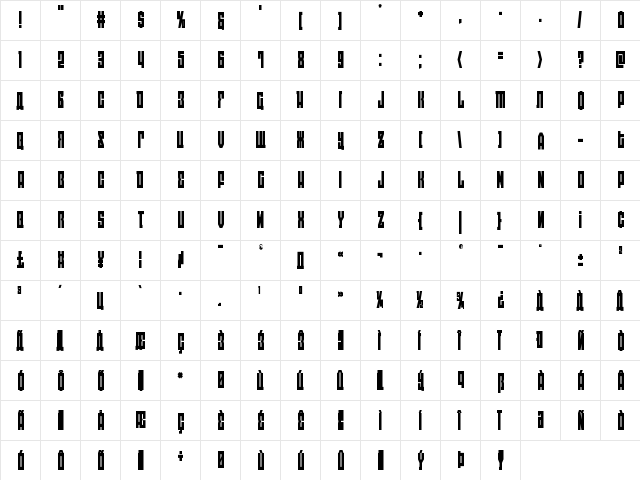
EAST-west Condensed Condensed
Design Context for EAST-west Condensed Typeface
EAST-west Condensed offers clean, dependable letterforms without strong stylistic allegiance, making it a practical choice for designers who need flexibility. Its narrow stance lets it pack a punch even in space-constrained designs.